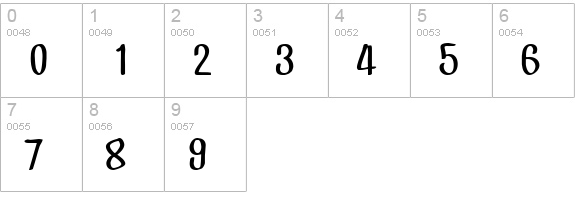
CF Jack Story Regular Font Details
CF Jack Story Regular is the standard, neutral variant in the CF typeface family \xE2\x80\x94 well suited to general body text, paragraphs, and standard typographic work.
CF Jack Story Regular font is a stunning and versatile typeface that effortlessly captures attention with its unique and contemporary design. With its clean lines and balanced proportions, this font is ideal for a wide range of projects, from branding and advertising to editorial design and website headers. CF Jack Story Regular font exudes a sense of elegance and sophistication, making it perfect for conveying a professional and polished image. Its well-crafted letterforms ensure legibility even at smaller sizes, allowing for easy reading in any context. One of the standout features of CF Jack Story Regular font is its extensive character set, which includes a wide range of glyphs, ligatures, and alternates. This allows designers to create truly custom and eye-catching designs, adding a touch of uniqueness to any project. What makes CF Jack Story Regular font even more appealing is that it is available for free at FontsMarket.com. This means that designers and enthusiasts alike can freely download and use this font without any restrictions. Whether you're a professional designer working on a client project or a hobbyist creating personal artwork, CF Jack Story Regular font is accessible to everyone. In conclusion, CF Jack Story Regular font is a visually stunning typeface that offers versatility, legibility, and a touch of elegance. With its extensive character set and free availability at FontsMarket.com, it is a must-have for any designer looking to elevate their designs to the next level.